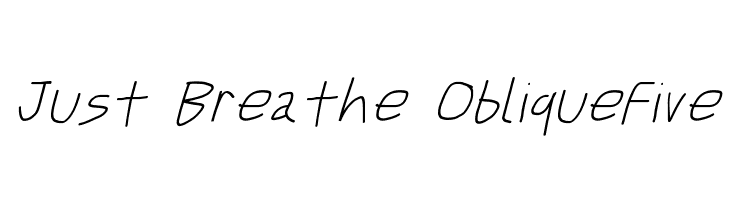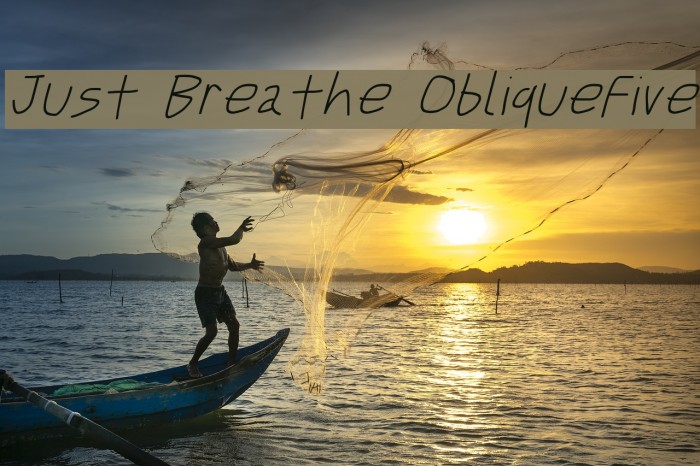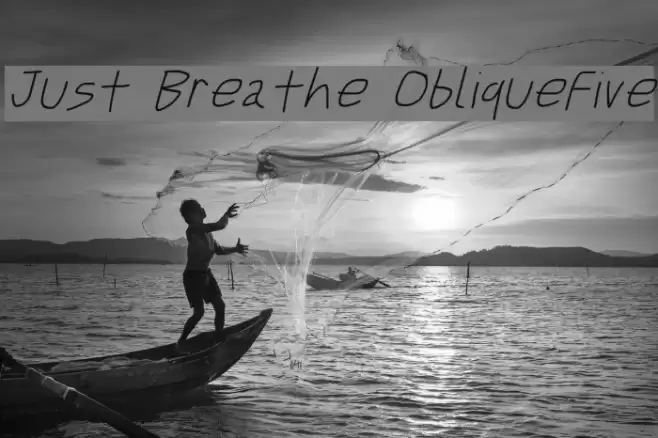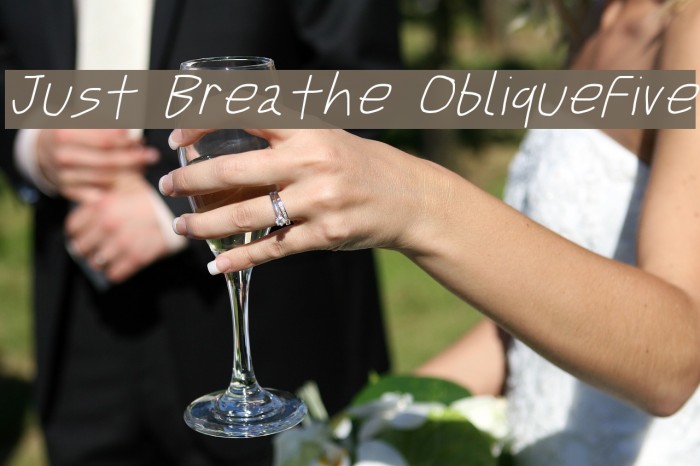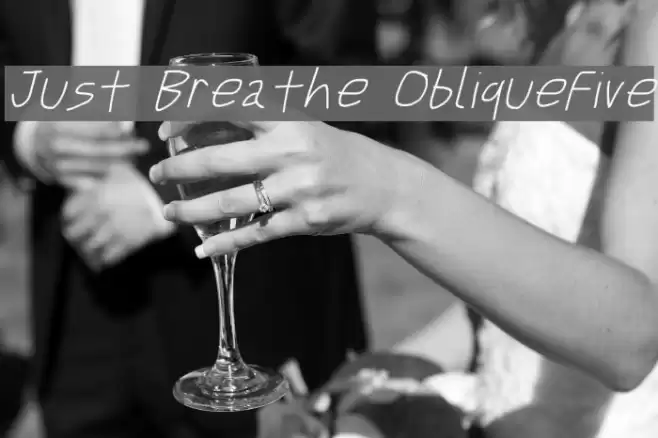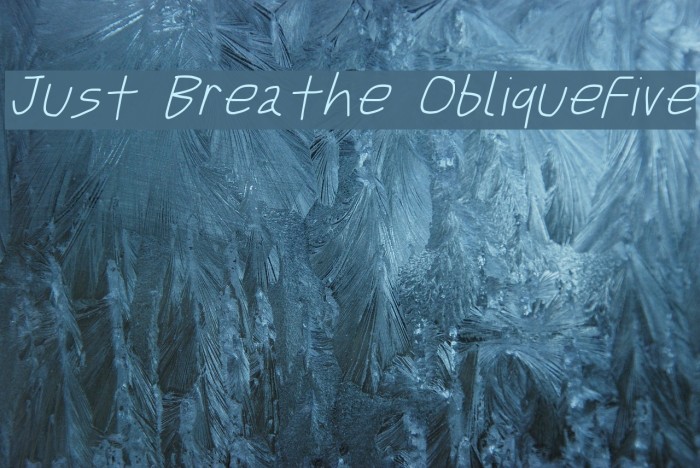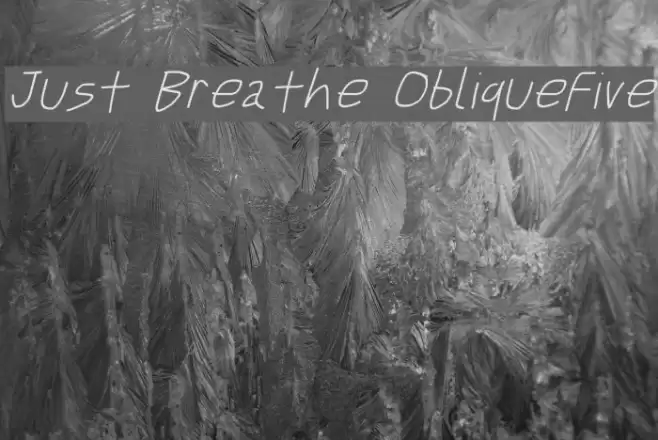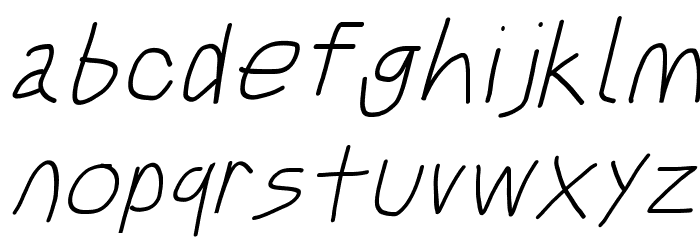
Just Breathe ObliqueFive Font
Just Breathe ObliqueFive Description
This font features a casual, handwritten style with a slight rightward slant, giving it an informal and approachable appearance. The characters are smooth and fluid, with rounded edges and consistent stroke widths that convey a sense of ease and simplicity. The uppercase and lowercase letters maintain a uniform height, contributing to a balanced and cohesive look. Numbers and special characters are designed with the same fluidity, ensuring readability and harmony across all elements. This font's relaxed and friendly demeanor makes it suitable for projects that require a personal touch.
| Overall Style | Casual |
| Use Case | Headlines, Informal text, Personal projects |
| Proposed Projects | Ideal for personal invitations, casual branding, greeting cards, and social media graphics. |